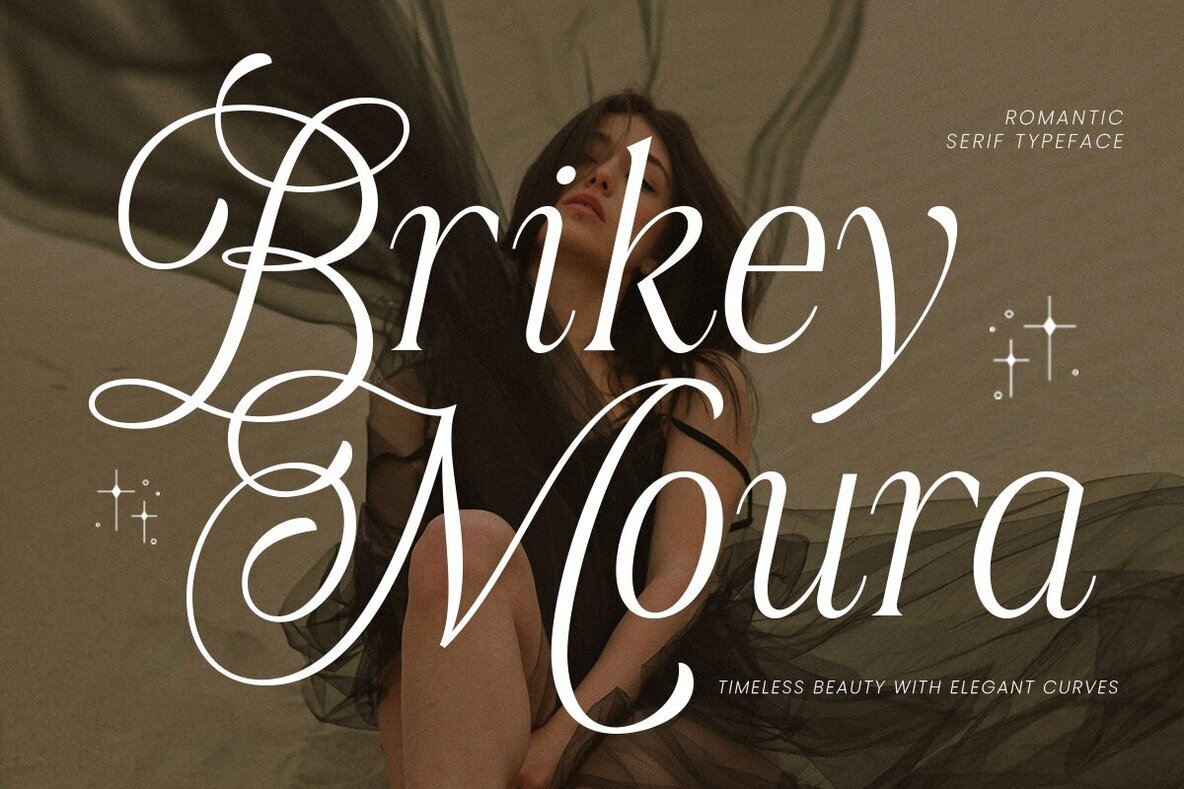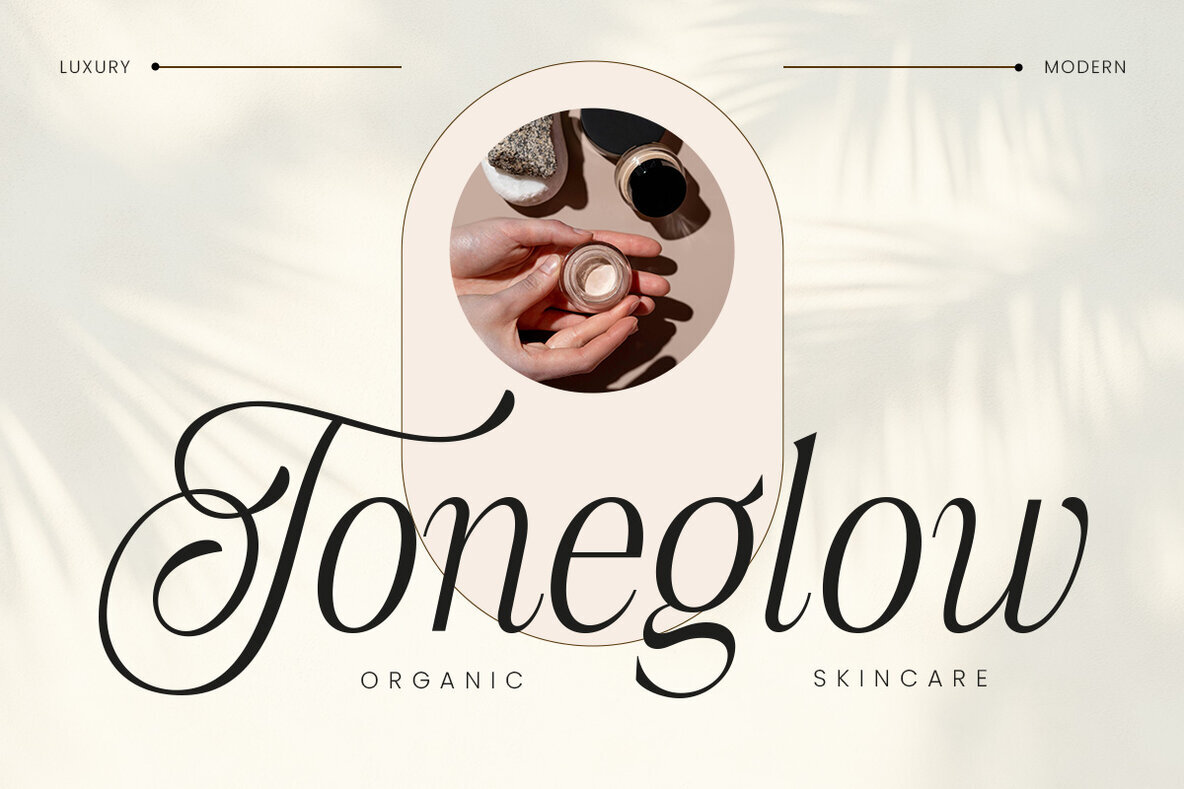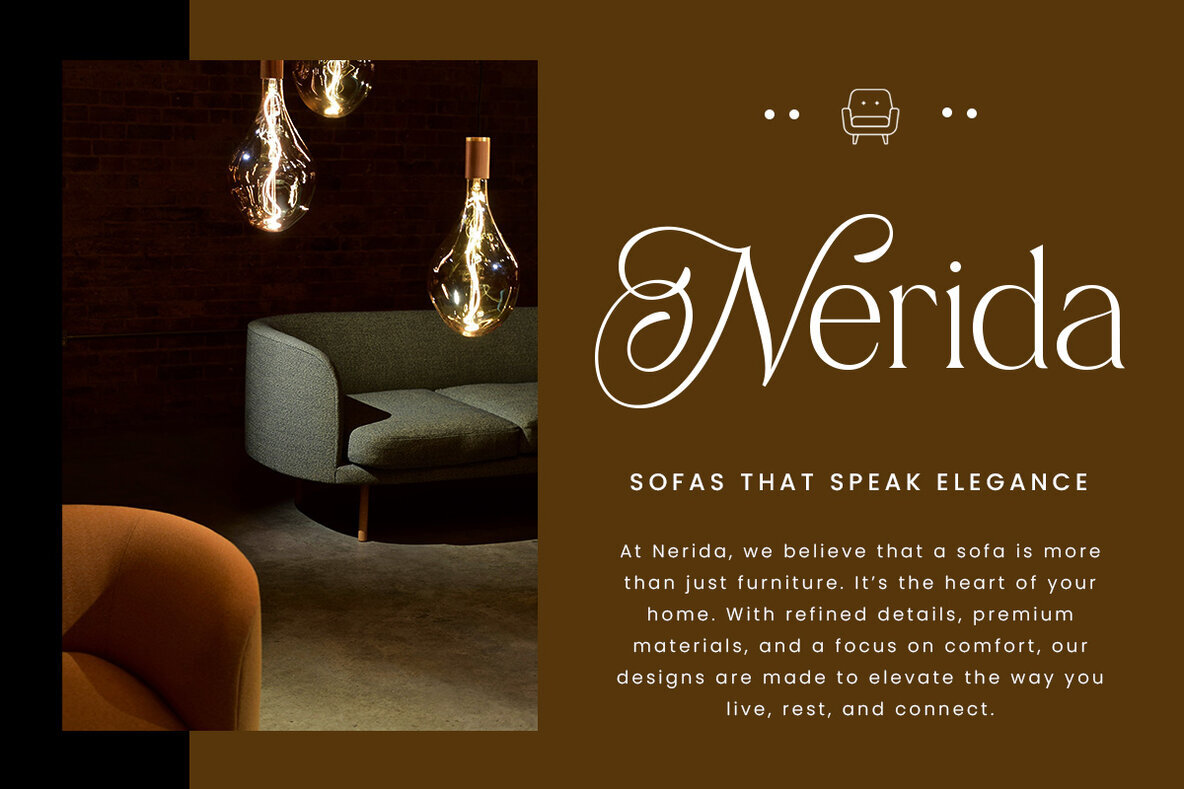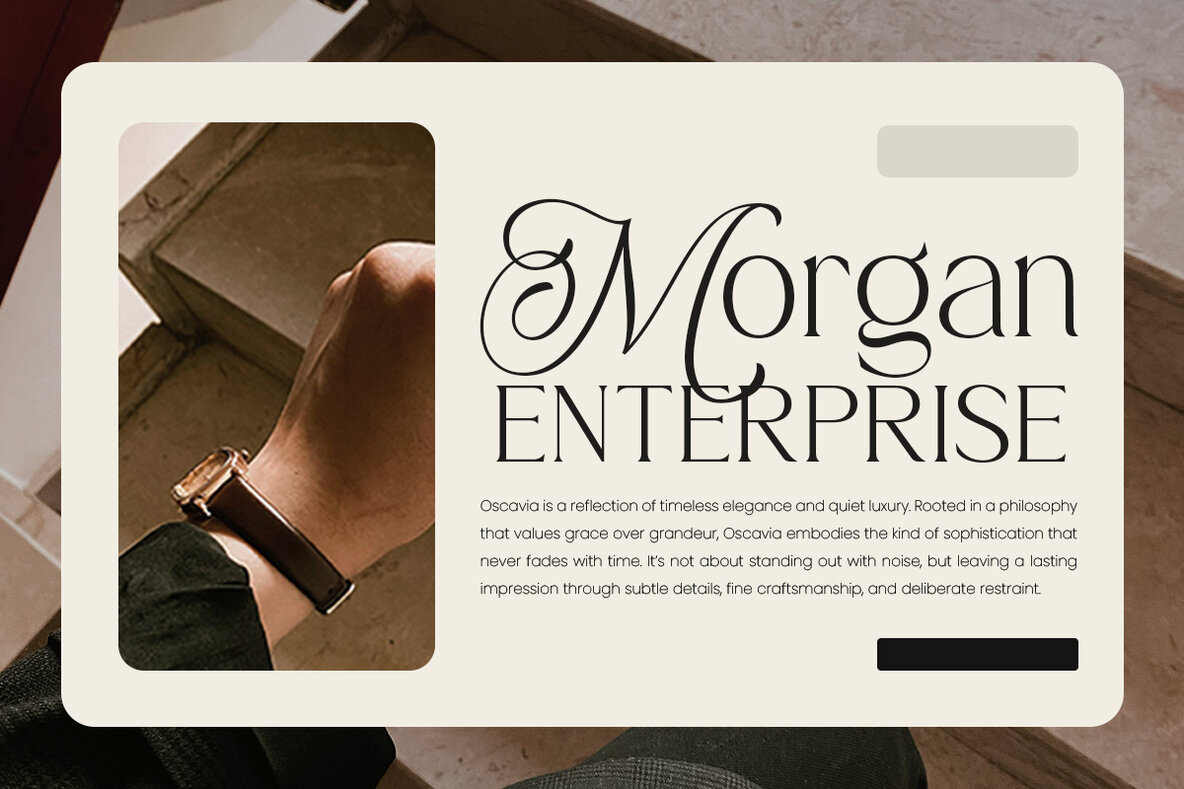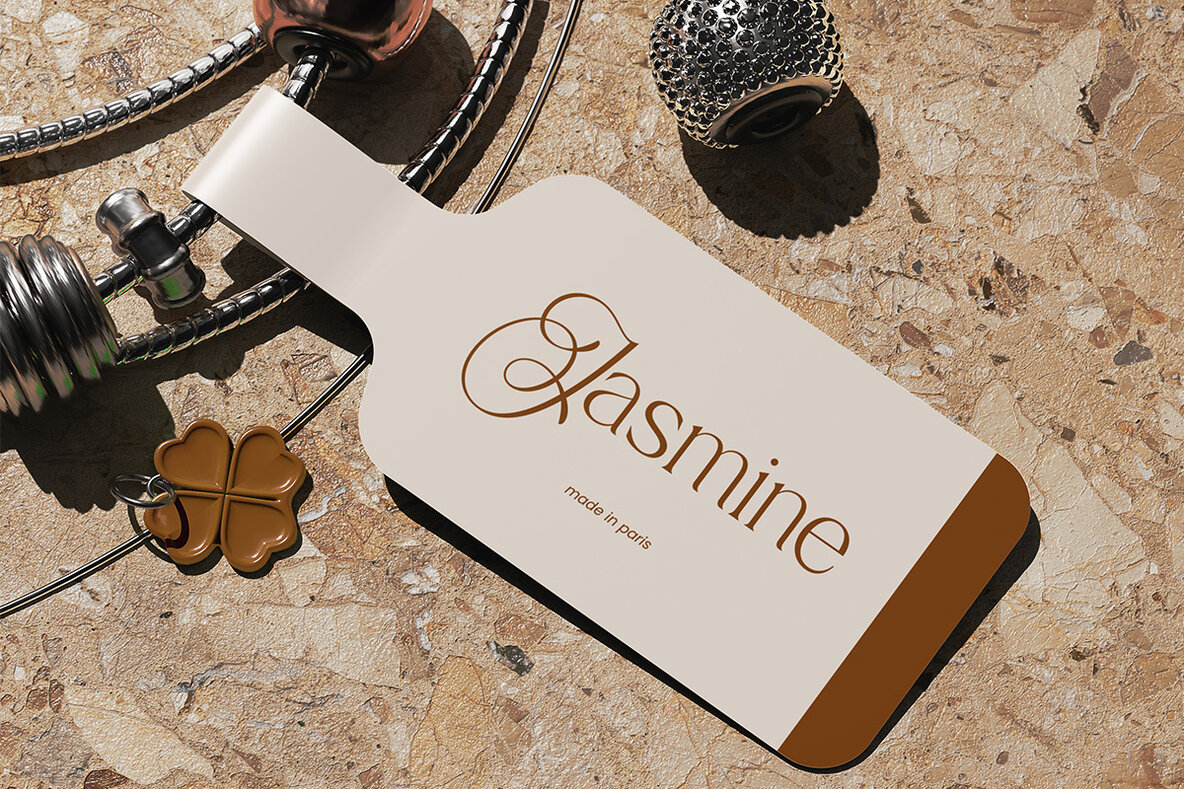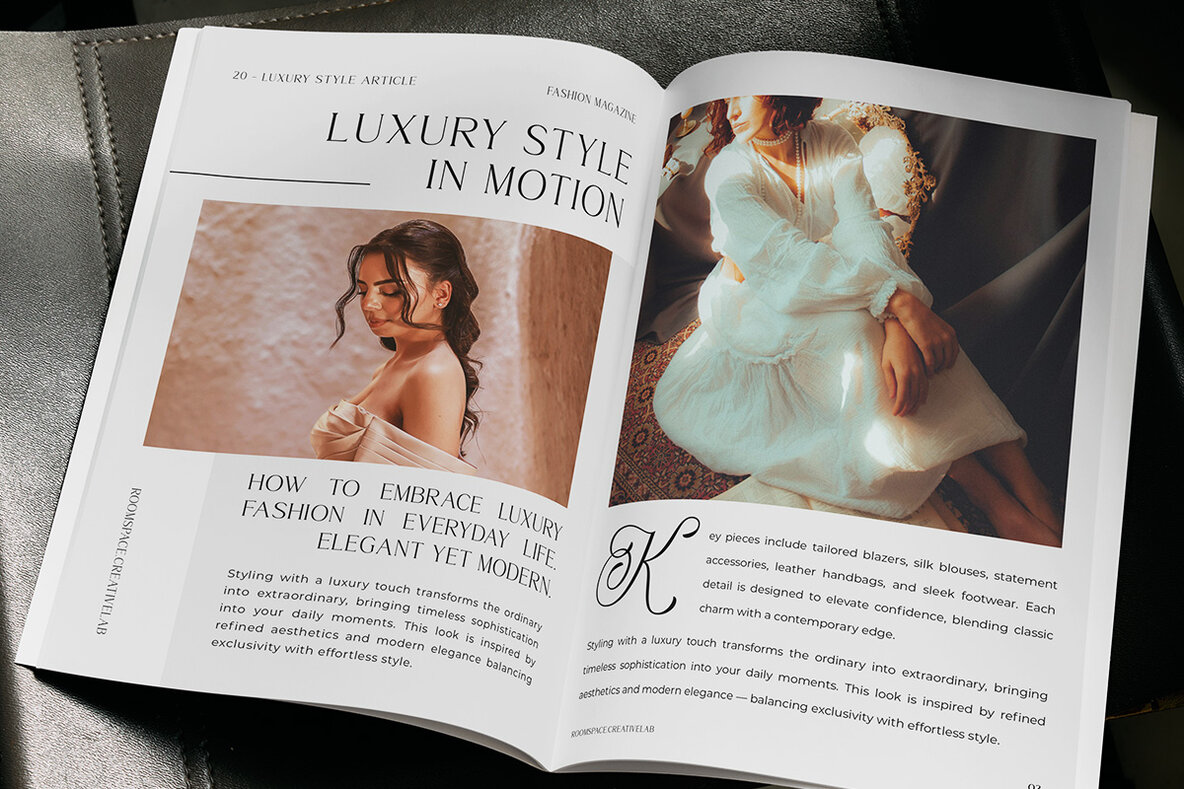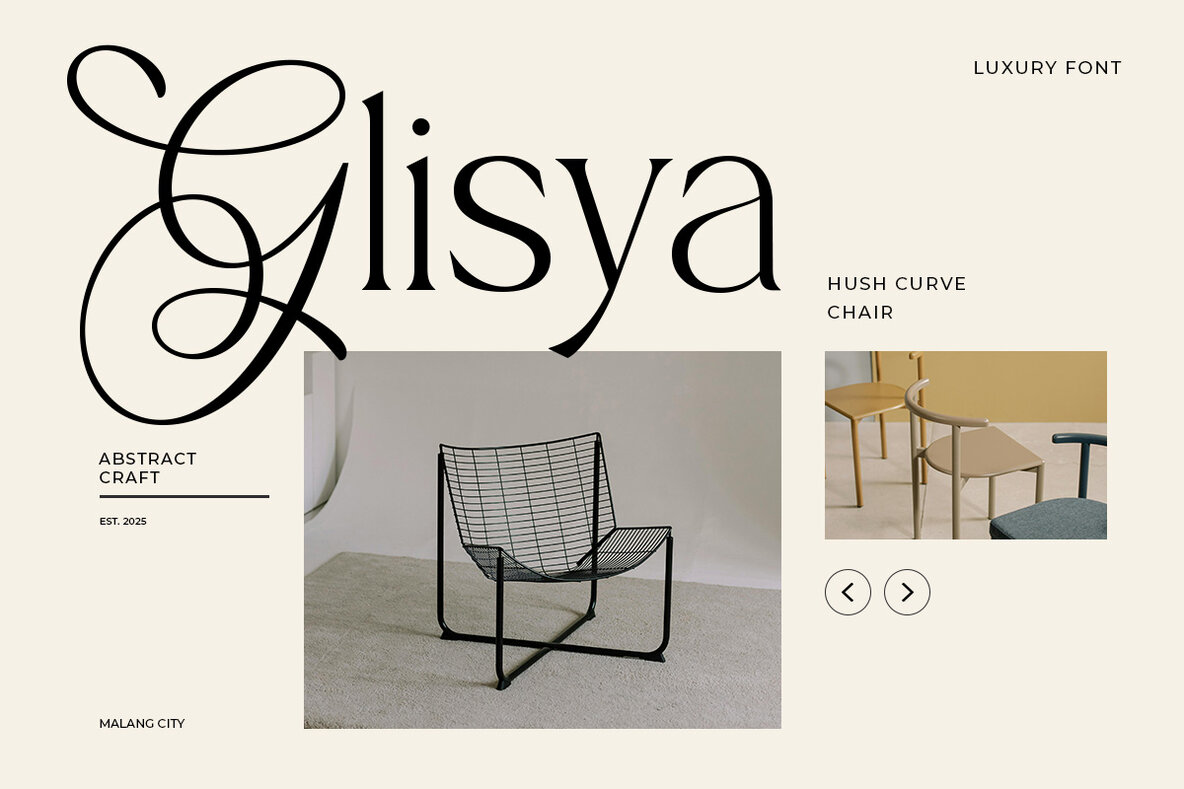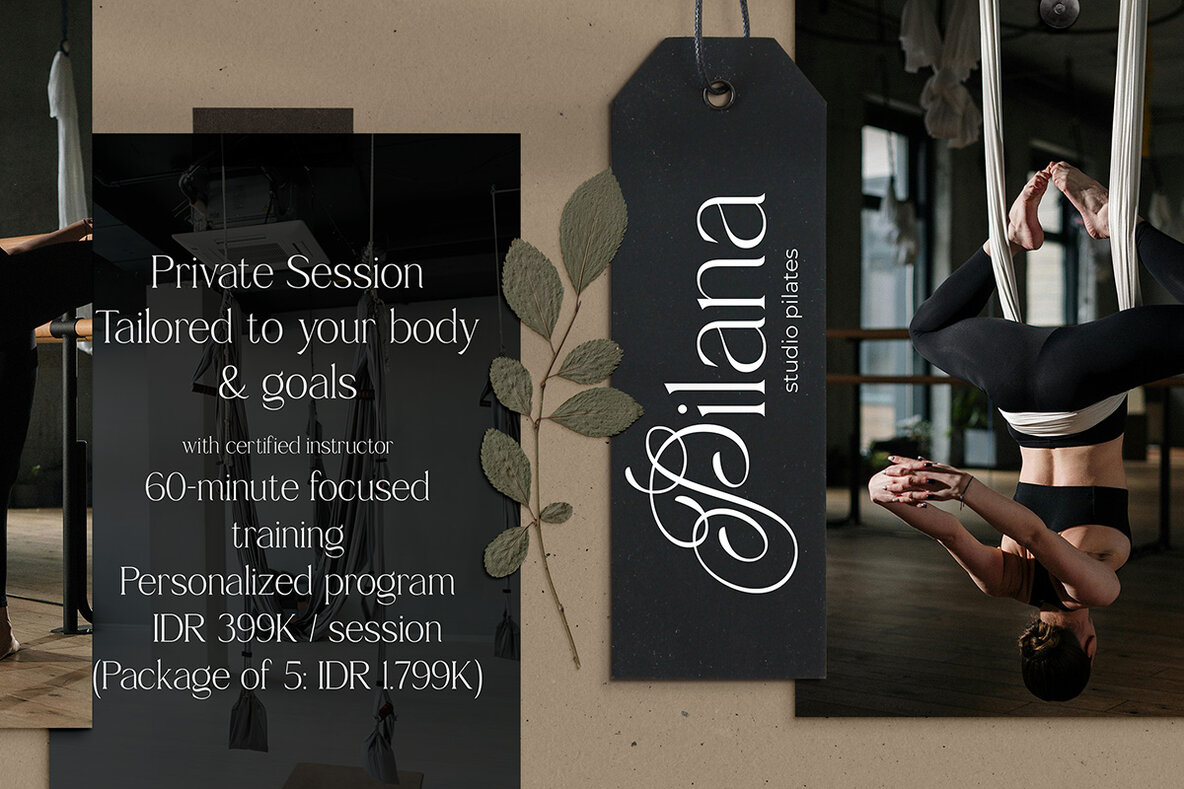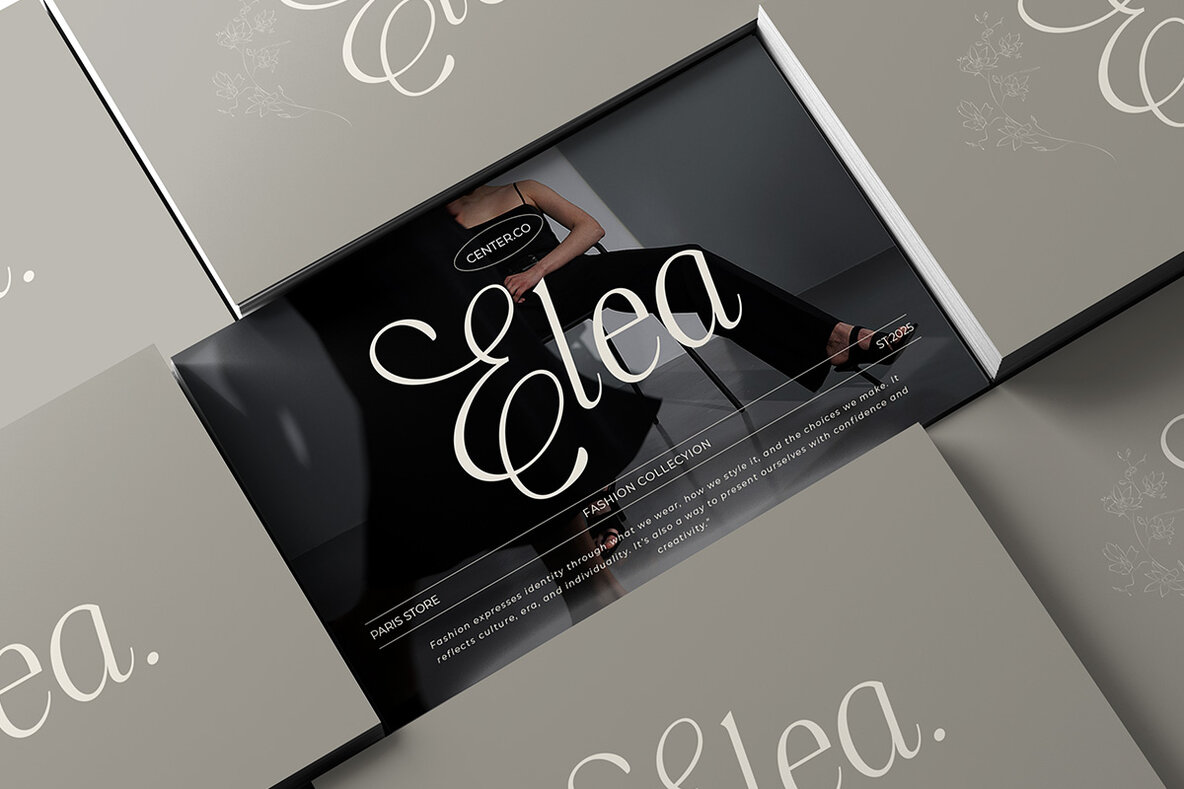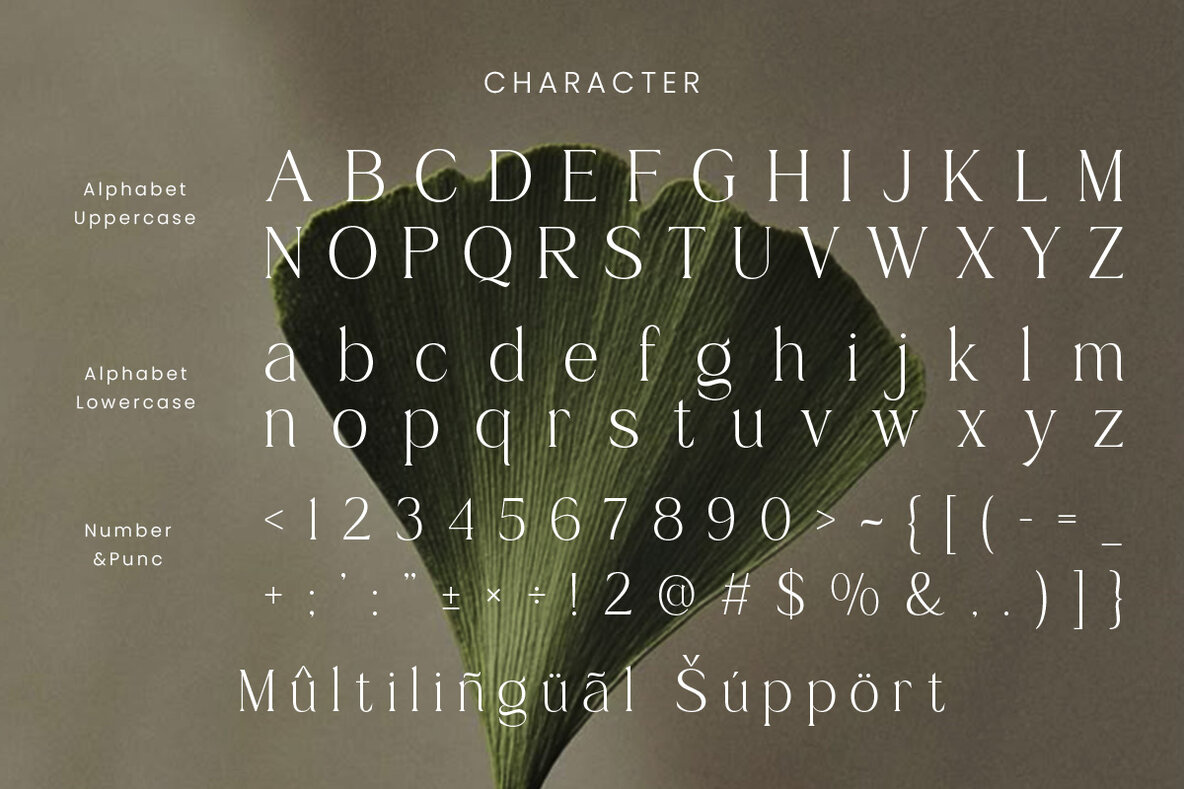
Brikey Moura Font
Brikey Moura is a sophisticated serif font that infuses any project with timeless elegance. Designed with a blend of classic beauty and contemporary style, it offers a romantic and bold presence that appeals to designers who appreciate style and refinement. Each character features delicate curves and refined details, providing a harmonious balance of strength and softness, ideal for achieving a polished and luxurious look. With Brikey Moura, transform everything from logos and branding to editorial layouts and wedding stationery. Its versatility and elegance make it indispensable for those wishing to convey sophistication, romance, and class in their designs.Brikey Moura: A Modern Luxury Serif
Versatile and Adaptable